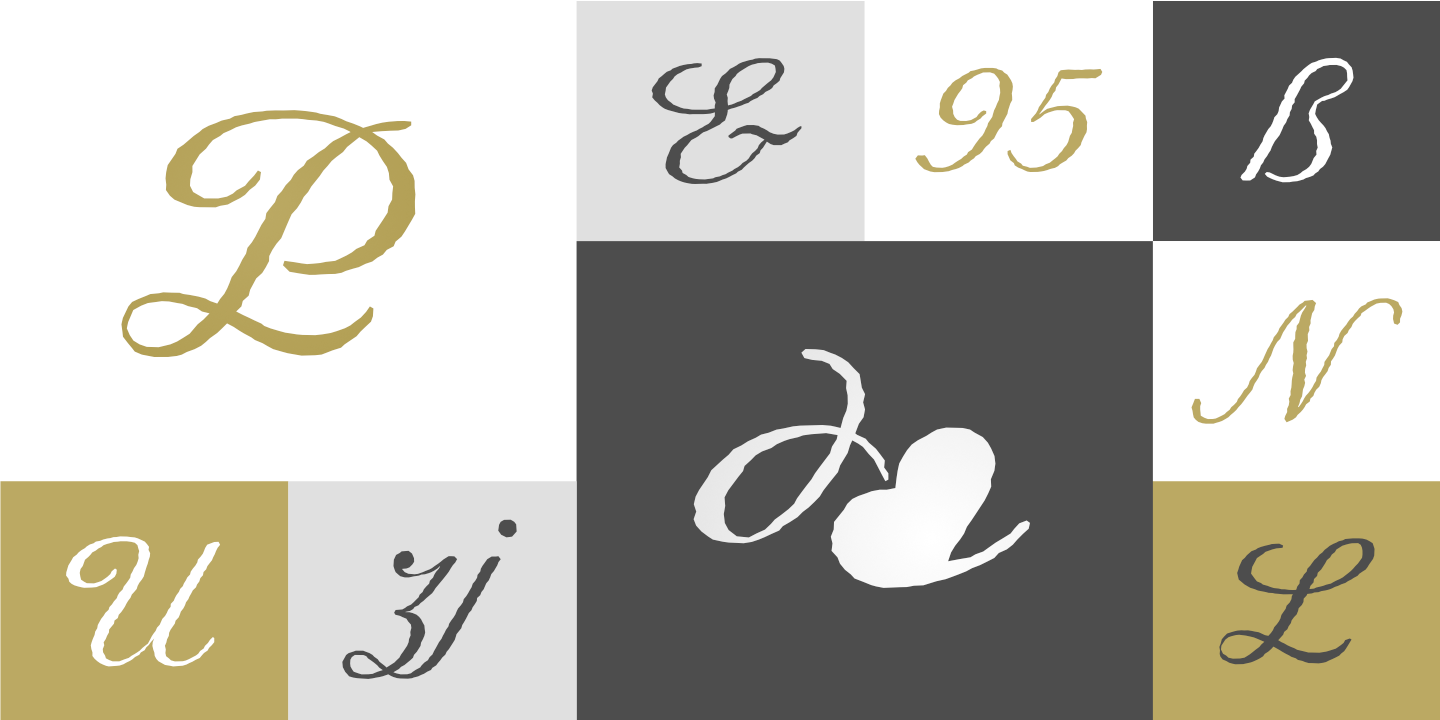
Rusulica Script Antique Regular
Rusulica Script Antique is a script font published by Type Fleet.
RUSULICA ANTIQUE
distinct aroma & flavor
Rusulica Antique is a modification of the erstwhile script. With rough edges it has a distinctive appearance, rich aroma and antique charm. Because of its ornamental and playful design, it offers plenty of possibilities.
Rusulica Antique has a high contrast. Its edges are rough and there is an alternate for almost every capital letter. The typeface’s x-height is bigger than usual and it is constructed at a 30° angle.